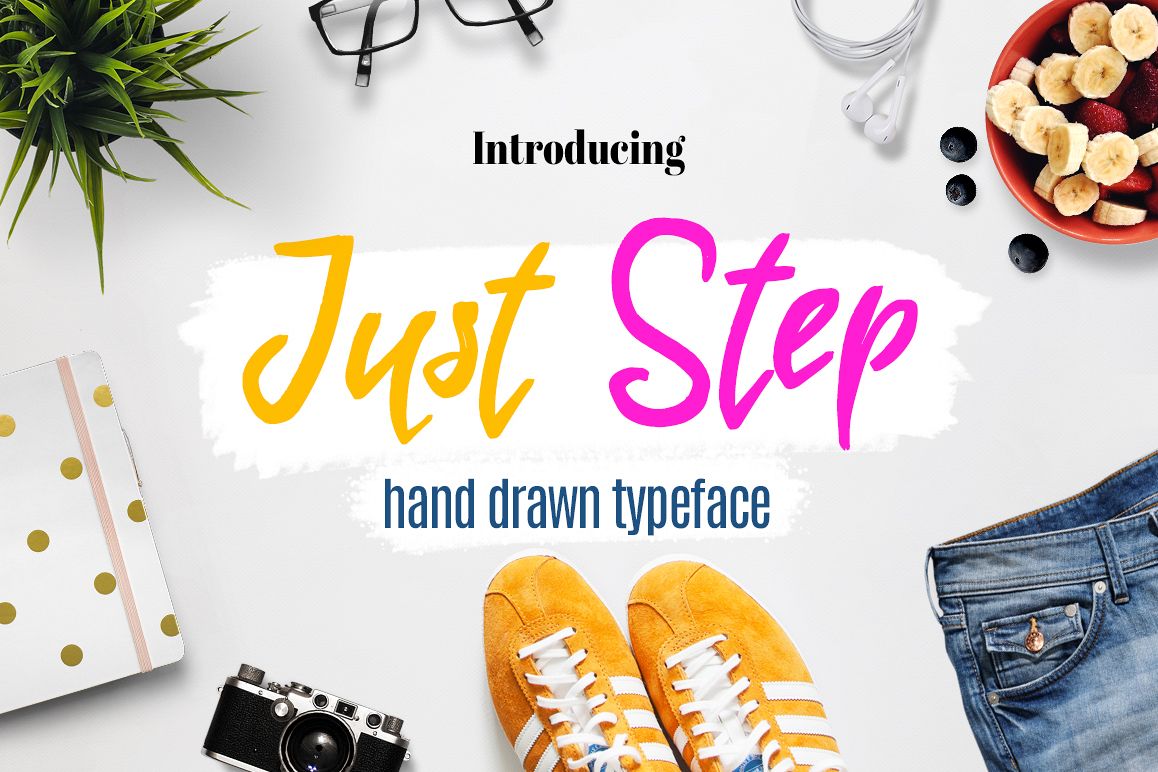
Just Step Typeface - Hand Drawn Font
Just Step - Hand Drawn Typeface your projects!
This script is perfect for cards, prints, logos, invitations, arrange illustration and decoration. Good for children and header. It has upper and lower case letters, numbers, special characters, accents.